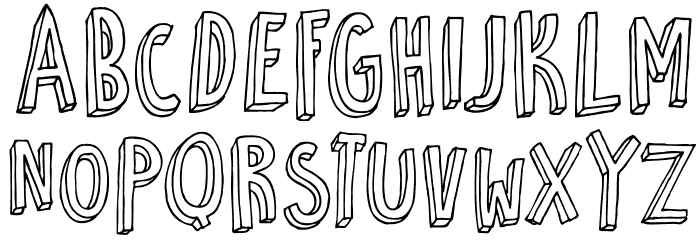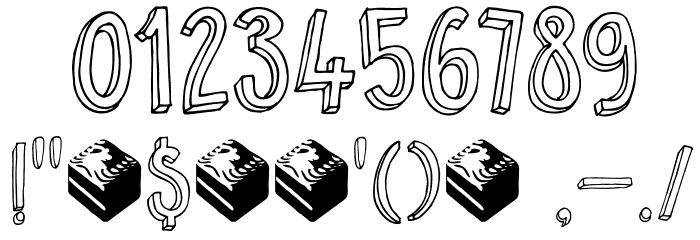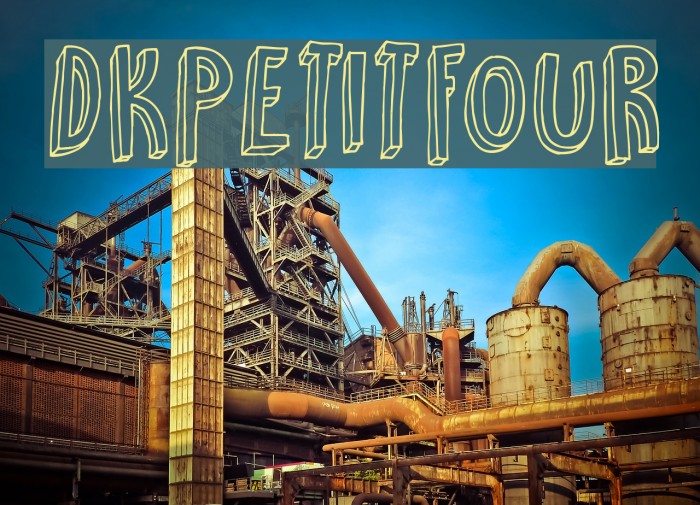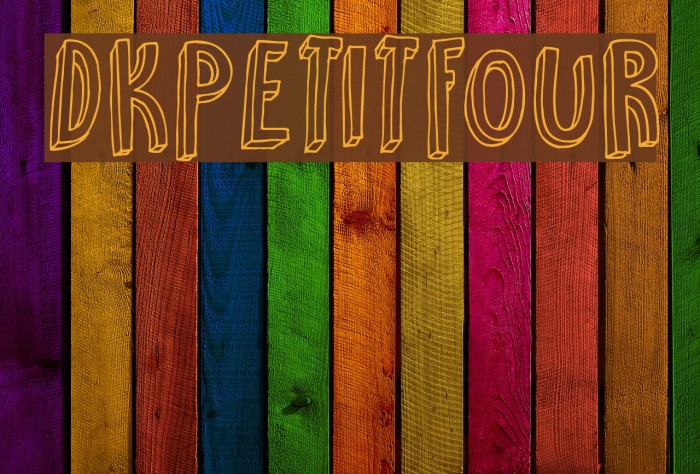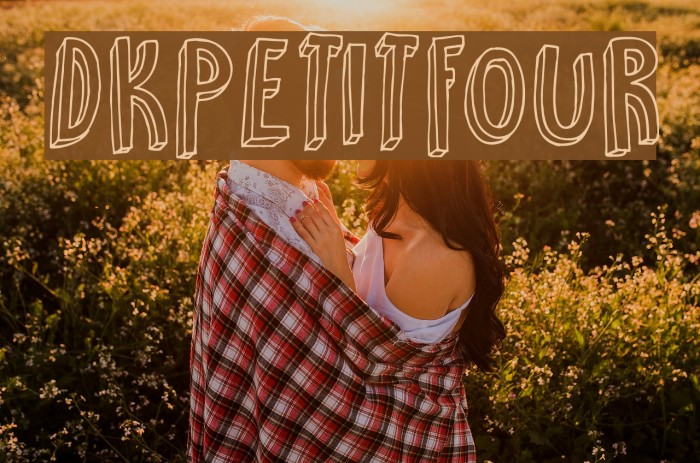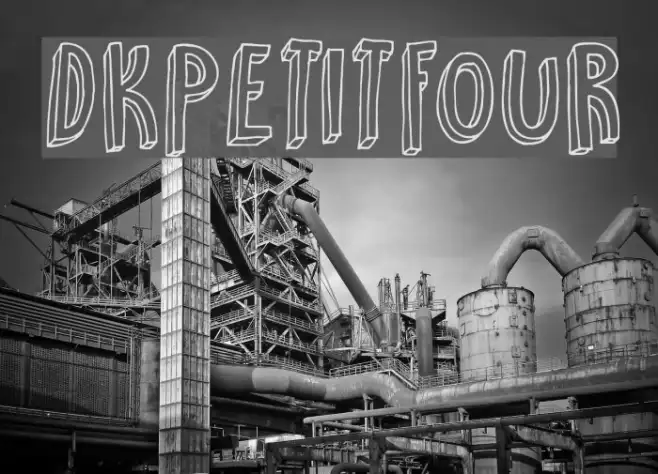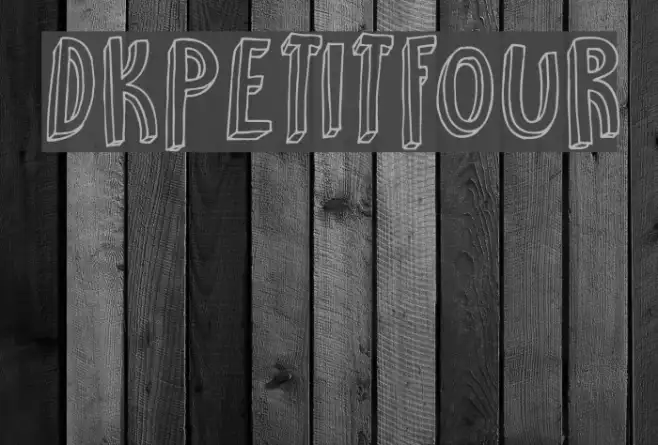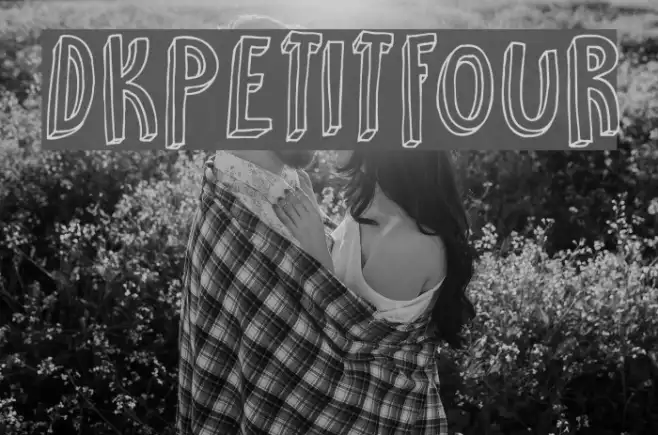
DKPetitFour Font
This font features a playful and whimsical style, characterized by its hand-drawn, three-dimensional appearance. The letters are outlined with a bold stroke, giving them a cartoonish and dynamic feel. Each character has a slightly irregular shape, adding to the casual and informal aesthetic. The font includes both uppercase and lowercase letters, numerals, and a selection of special characters, all maintaining the same lively and engaging design. The overall look is reminiscent of doodles or sketches, making it suitable for creative and fun projects.
A playful, hand-drawn font with a 3D, cartoonish style.
- Proposed Projects: Ideal for children's books, comic strips, playful branding, and creative posters.
- Overall Style: Playful, Whimsical, Cartoonish